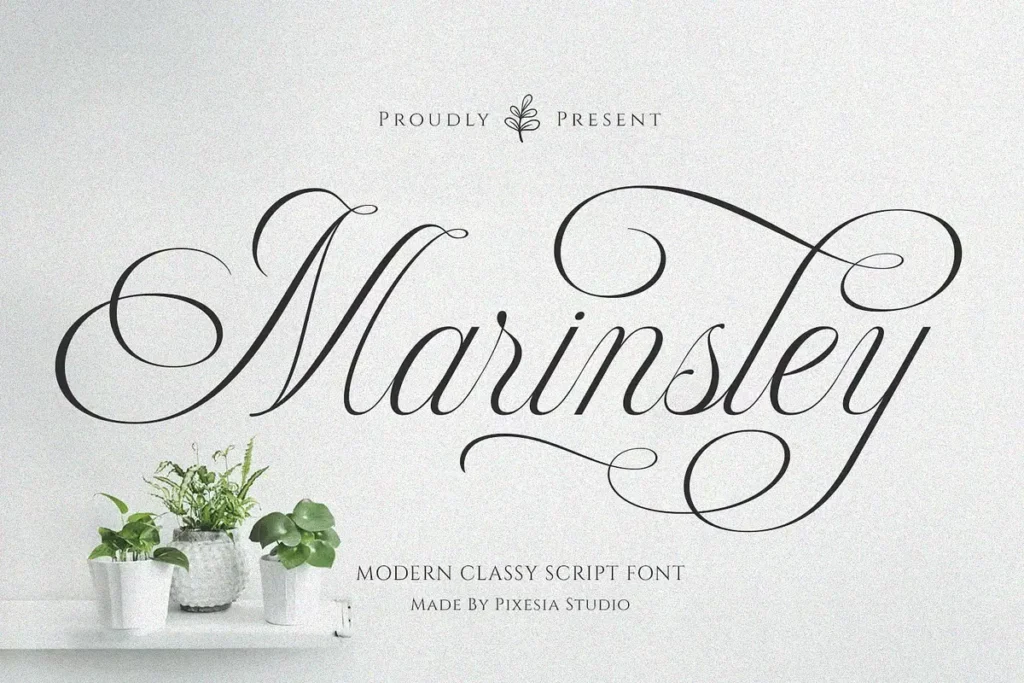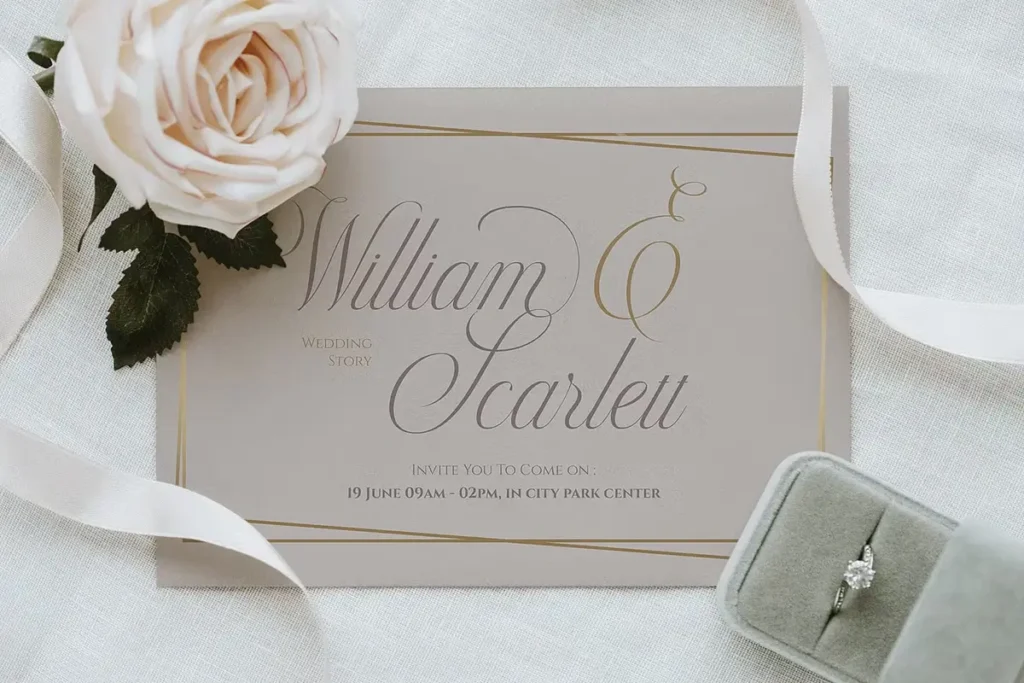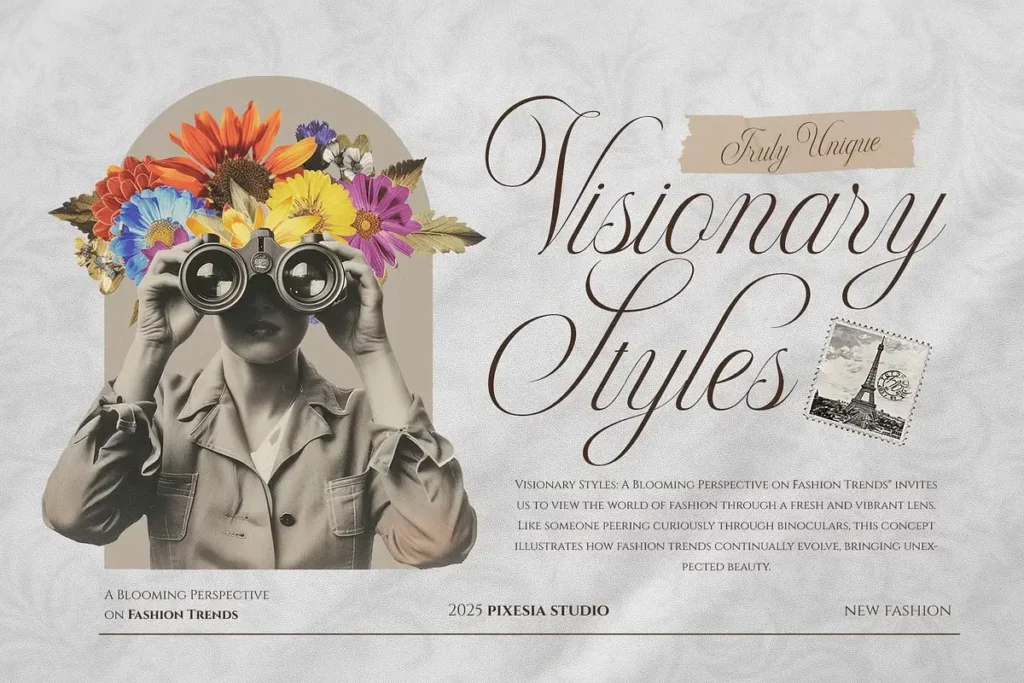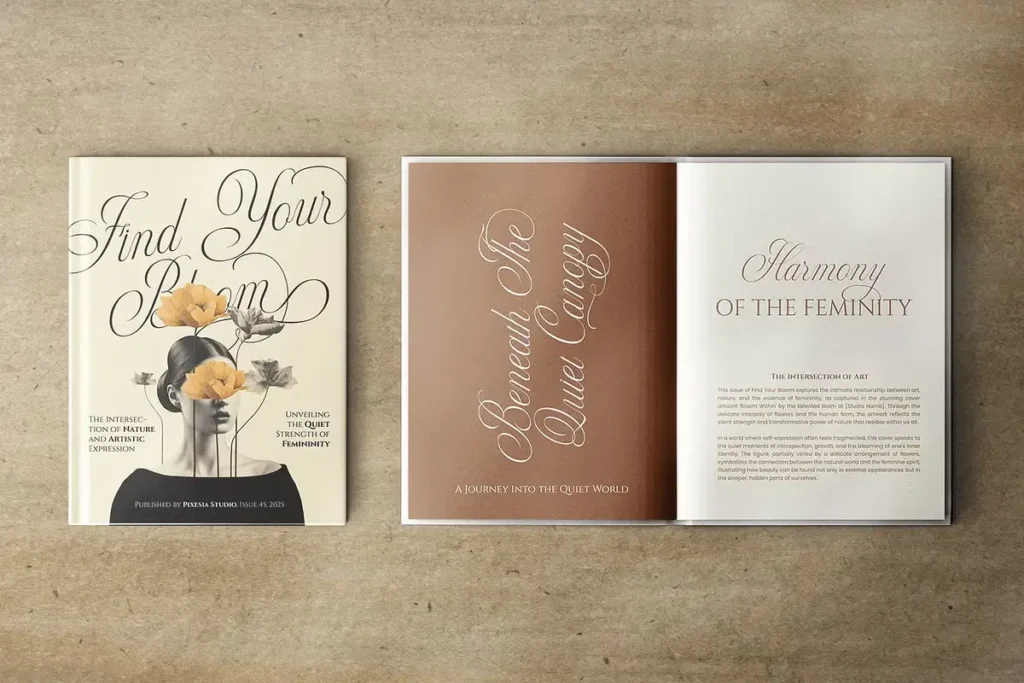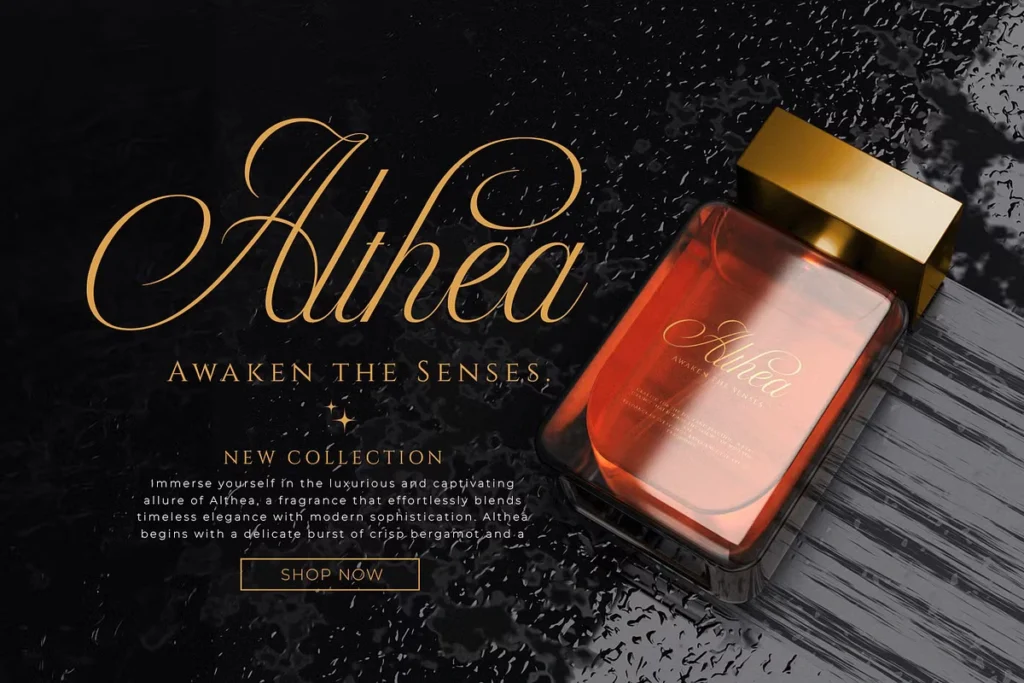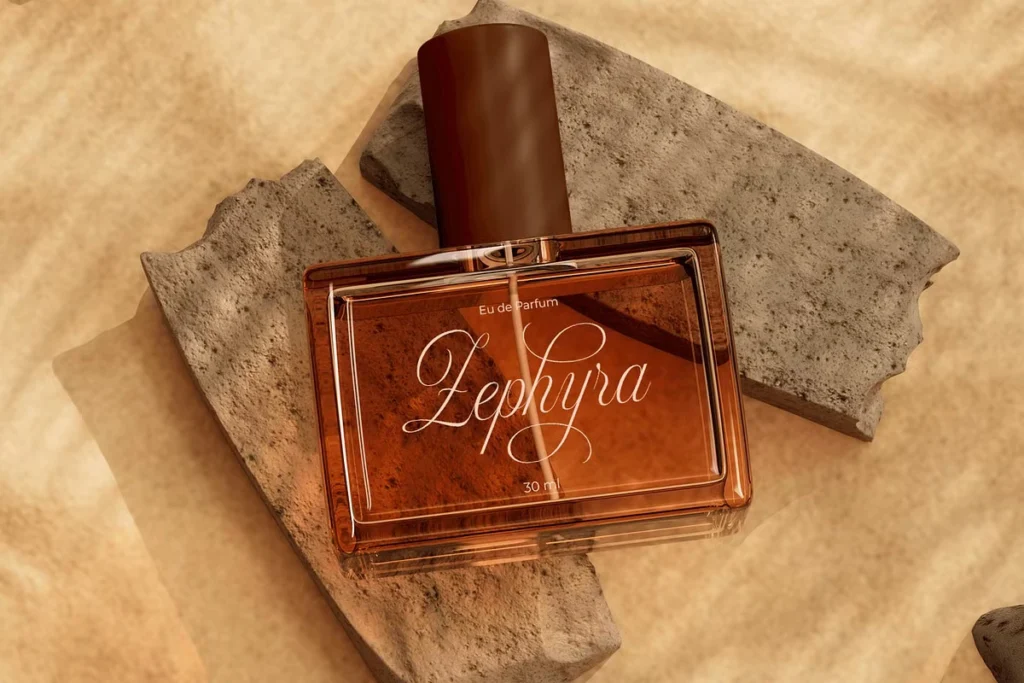
Marinsley Modern Cursive Script Font
Marinsley is a modern cursive script with a refined presence. Its graceful curves and flowing rhythm bring a sense of sophistication to every letter. With a blend of classic charm and modern clarity, this font feels both polished and approachable, perfect for projects that call for a touch of elegance without being overly ornate.
Grace in Every Stroke
What makes Marinsley stand out is its balance. The letterforms are beautifully connected, with gentle transitions and high-contrast strokes that move effortlessly across the page. Subtle swashes and thoughtfully designed ligatures give each word a handcrafted feel. Stylistic alternates allow for variation and creativity, while the overall flow remains smooth and harmonious.
Effortless Style Across Projects
This font feels right at home in designs that aim for beauty and intention. It’s especially well-suited for wedding materials, feminine branding, product packaging, or anything that leans into a soft, high-end aesthetic. Marinsley adapts easily to editorial layouts, text accents on photography, social media graphics, and business cards where a touch of grace can shift the entire tone.
Perfect for:
- Wedding invitations and stationery suites
- Logo design and brand identities
- Elegant product labels and packaging
- Magazine titles and lifestyle spreads
- Personalized quotes and greeting cards
- Feminine blog or social media posts
What Sets It Apart
Marinsley carries a quiet confidence, offering just enough flourish to elevate a design without overwhelming it. It’s practical too, with multilingual support and easily accessible stylistic extras that make it as functional as it is graceful. Whether in bold headlines or subtle accents, it adds charm and character with very little effort, letting elegance flow naturally through every letter. Try it in your next project and let its quiet beauty speak for itself.